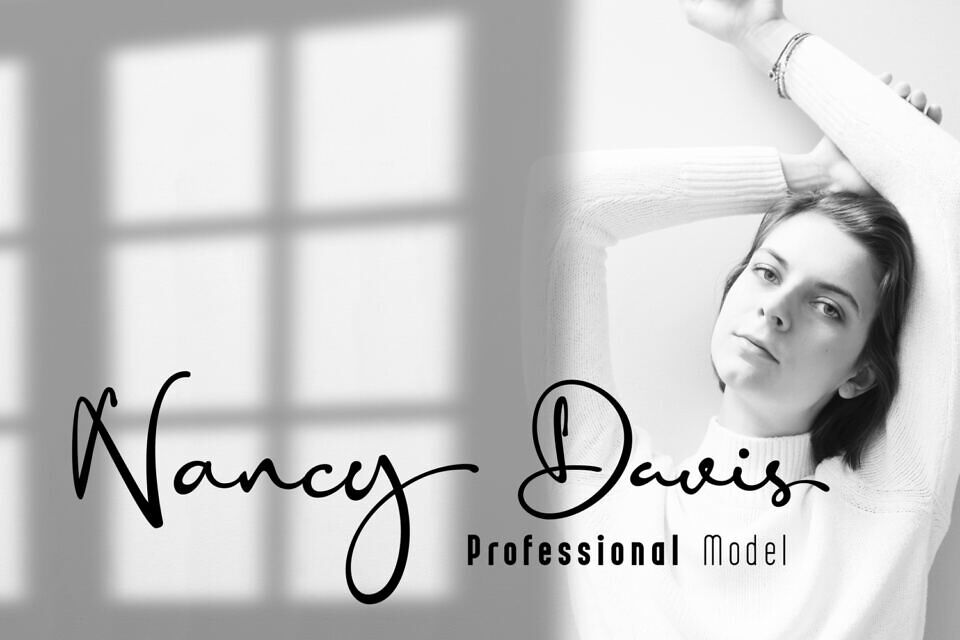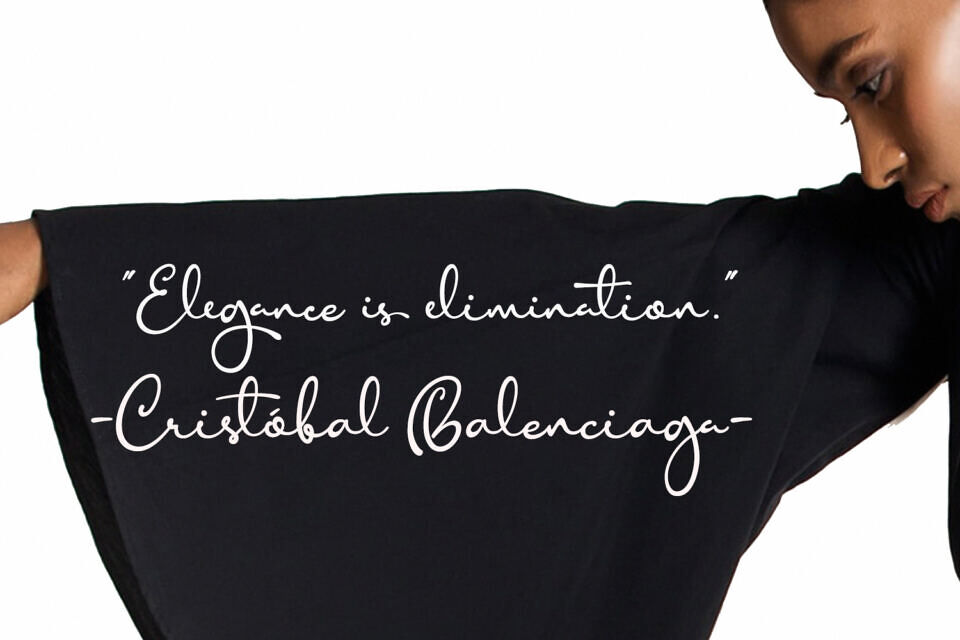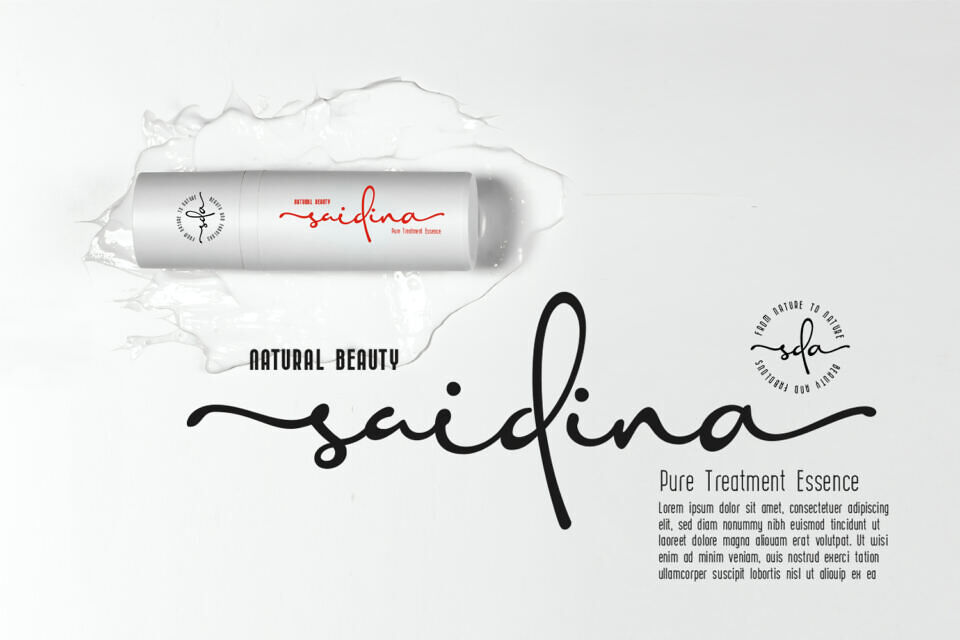
Anisha Font
Anisha is the Great choice for brand identity, branding and just branding … we have studied various branding of modern products and we found a very interesting style, which is a combination of “calligraphy signature and clean sans”. This is like combining two different elements and together in a composition that is very luxurious and elegant.
Anisha calligraphy, bold and thin sans, all of which consist of regular and slant versions, so the number of fonts in this package consists of 6 fonts, the more choices the more design combinations you can make.
Anisha is a beautiful high fashion font that makes for gorgeous logos, posters, blog posts, social media, and more!
Designed by: 38.lineart